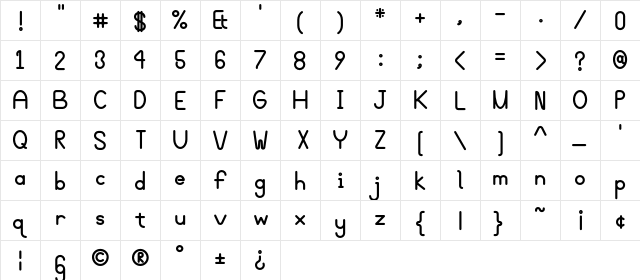
BloomingGroveAltBold Bold
Design Context for BloomingGroveAltBold Typeface
BloomingGroveAltBold is a composed and adaptable typeface that performs quietly and consistently across a wide range of design contexts. Its bold stroke weight gives it real presence on the page.